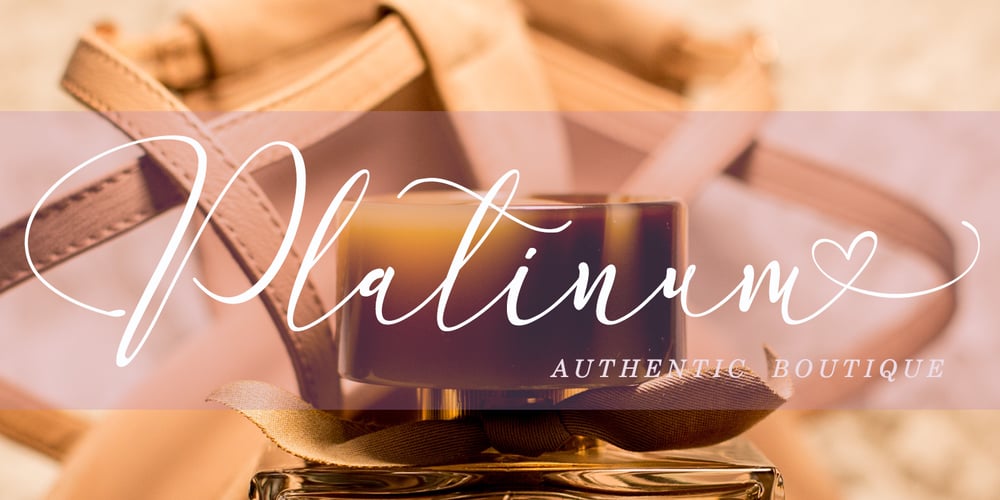
England Reality Font Family was designed by Alde Saputro and published by Aldedesign. England Reality contains 2 styles and family package options. England Reality is a script font with awesome and classy taste, a natural touch, and many ligatures. We feel this font looks classy, readable, elegant, stylish, catchy and absolutely easy to use. This font is a great choice for a watermark on branding, design, wedding, photography, signature, logo design, album cover, business card, quotes, and many other design projects.